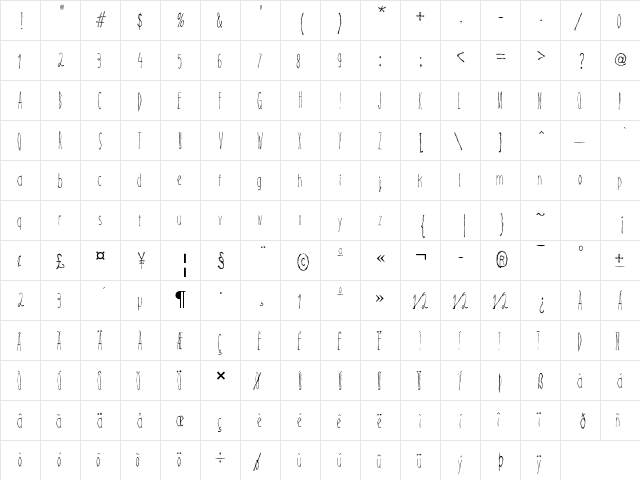
Magical Cord Regular
Design Context for Magical Cord Typeface
Magical Cord is a composed and adaptable typeface that performs quietly and consistently across a wide range of design contexts.
Pro Tip: Pair Magical Cord with a font of contrasting weight or personality to build a more expressive typographic hierarchy.